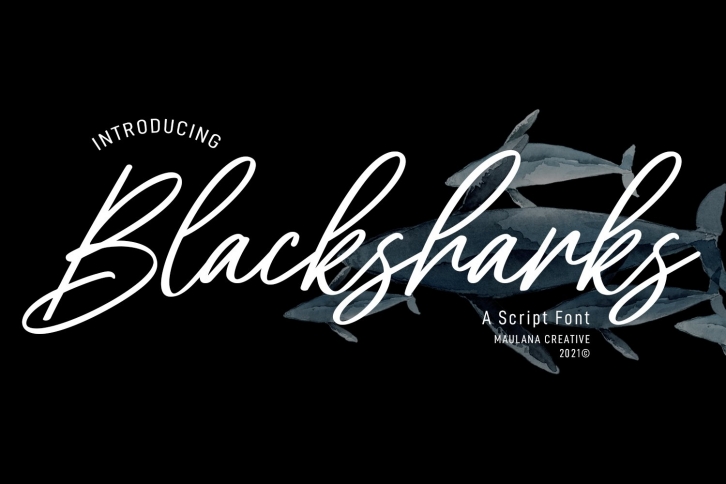
Blacksharks Script is a gorgeous font that was realeased on July 19, 2021. The font can be used in many style contexts and design environments. Perfect for invitations, magazines, websites, logos, and more! It was designed by Maulana Creative and the file size is 11.39 MB. Thanks for checking out this font!